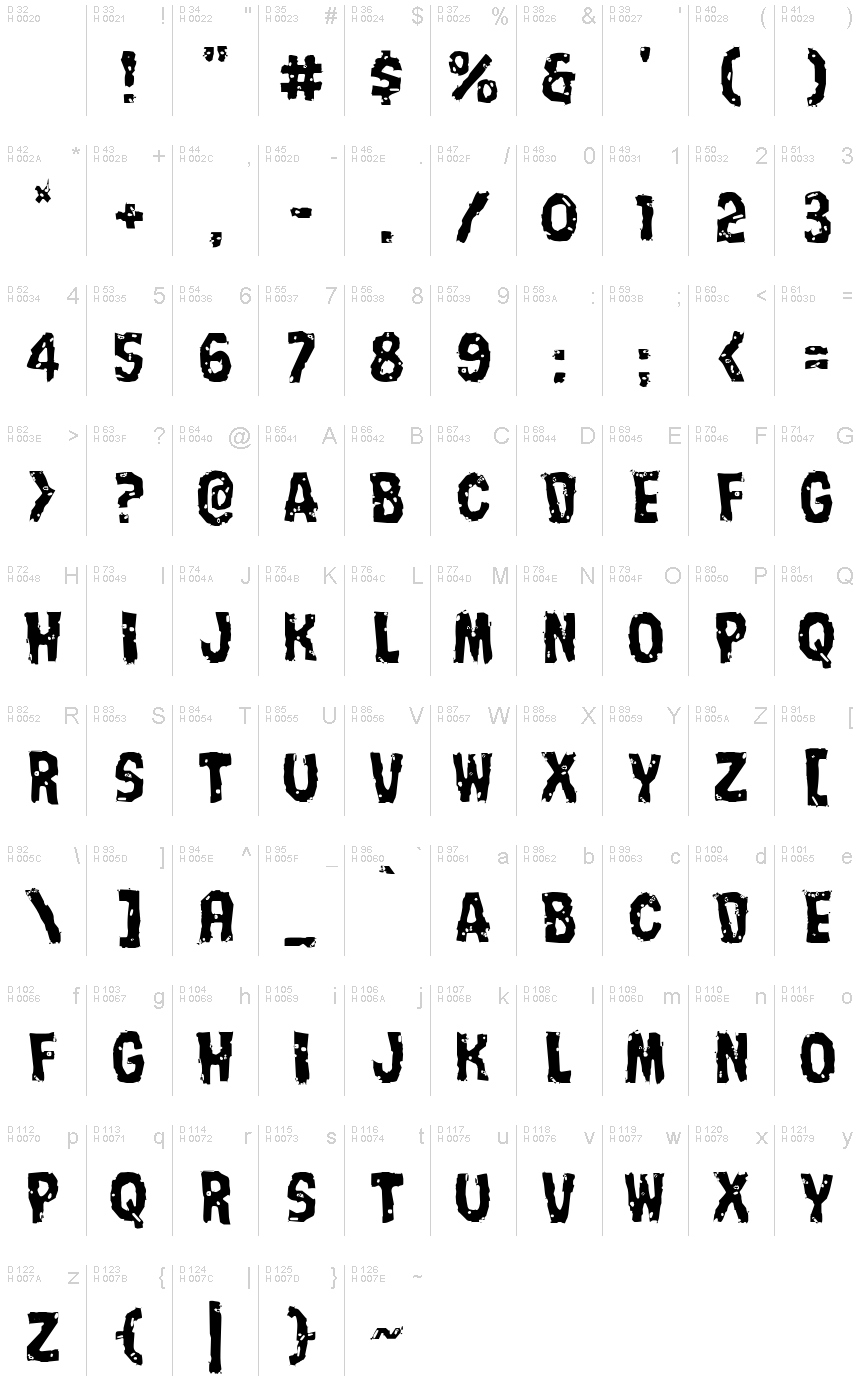
Nightmare Alley Light is a captivating display font that radiates an undeniably eerie and unsettling presence. Designed by Daniel Zadorozny, this bold and condensed typeface exudes a sense of dark foreboding, its sharp edges and irregular forms evocative of a nightmarish realm. The font's striking aesthetic lends itself particularly well to horror-themed projects, horror movie posters, and other applications where a chilling, ominous tone is desired.
The Nightmare Alley Light's versatility extends beyond its natural fit for spooky branding and graphic design, as its distinct character can lend an impactful, attention-grabbing presence to a wide range of creative endeavors.